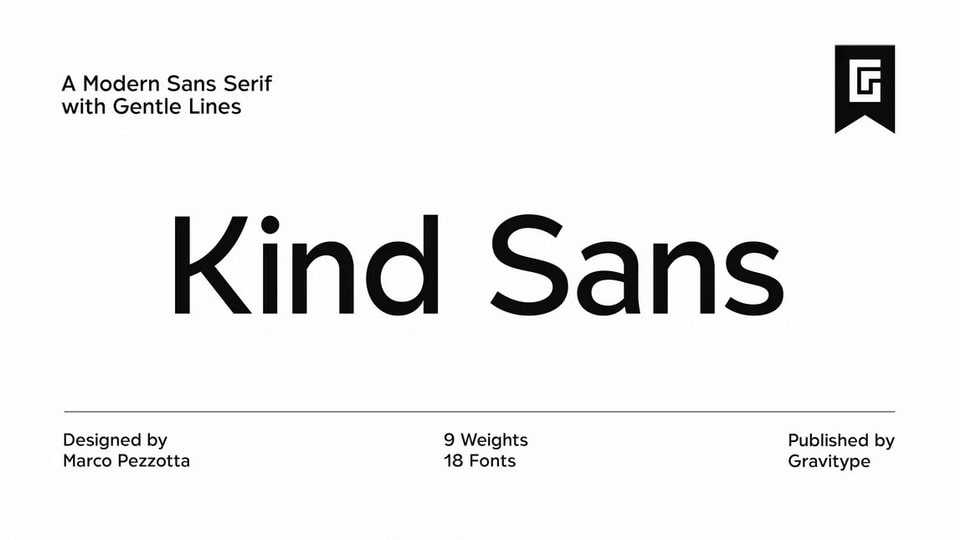
Download Kind Sans font, a refined sans serif typeface designed to be easily approachable. With its clean lines and gentle curves, Kind Sans radiates an inviting appearance that adds a touch of humanity to any text.
Designer: Marco Pezzotta